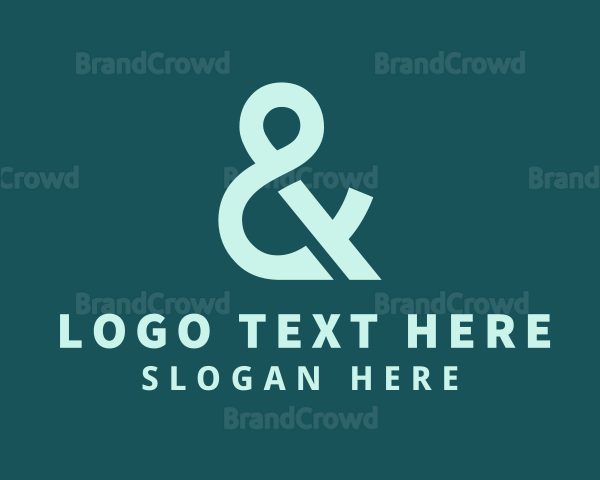
Green Ampersand Font Logo
The Green Ampersand Font logo is the perfect symbol of luxury and elegance for any modern business. With its stylish and hipster typography, this logo is sure to make a statement. The green color adds a touch of sophistication, while the ampersand symbol represents the connection and partnership between the company and its clients. This logo is perfect for any upscale firm or enterprise looking to make a lasting impression. The calligraphy and signature lettering give it a premium and deluxe feel, making it the ideal choice for any company looking to stand out from the crowd. The Green Ampersand Font logo is the epitome of modern, stylish, and elegant design.